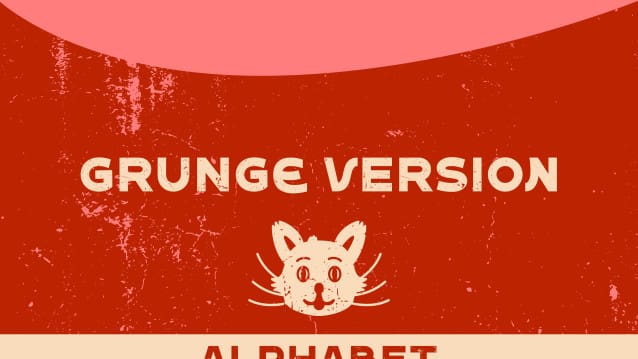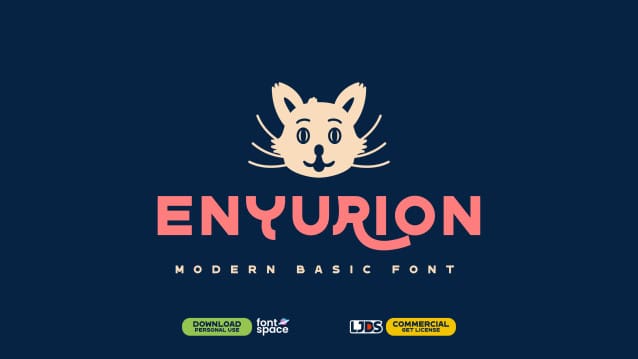
Enyurion Font
Enyurion Font is a basic looking Multi Map font family (caps only) created in a heavy version, it has a regular style and a grunge style. Among its utility options, the font has stylistic alternatives and discretionary ligatures, (Alternatives only in the alphabet A-Z) that offer decorative letter modes perfect for enriching artistic compositions according to the artist’s purpose.